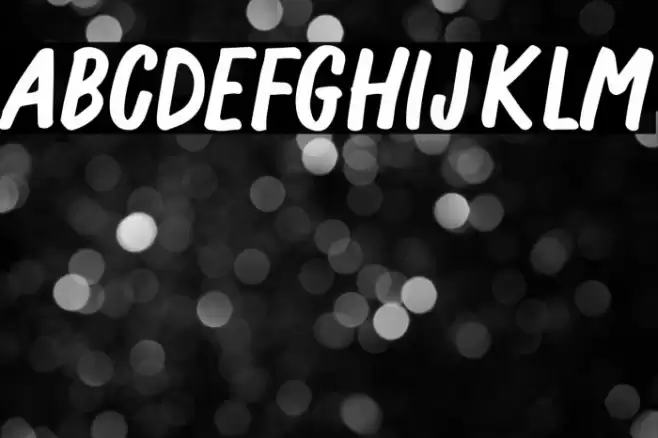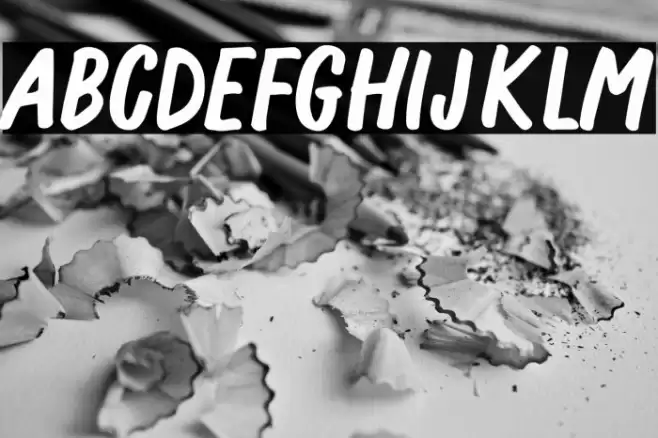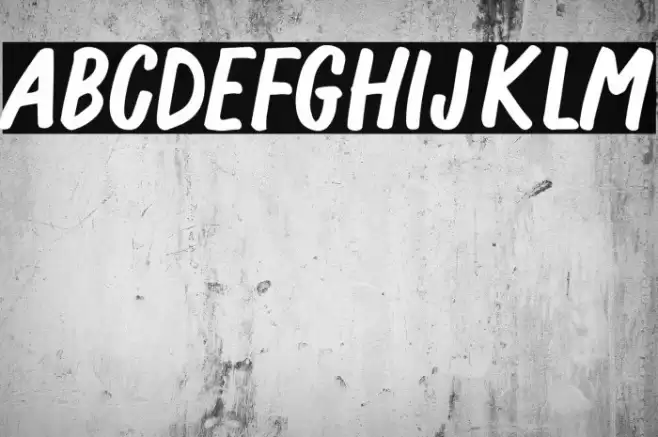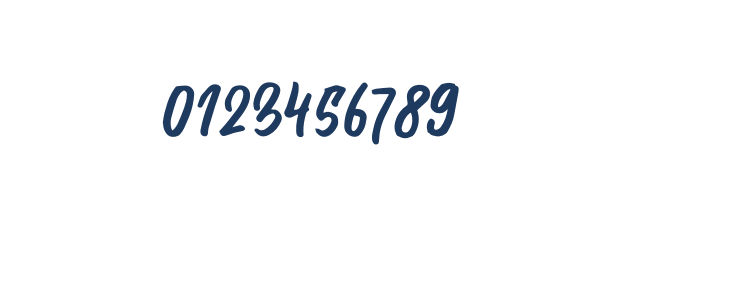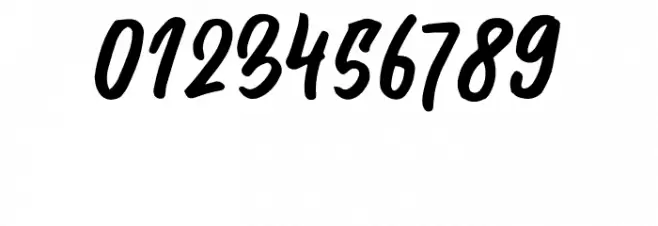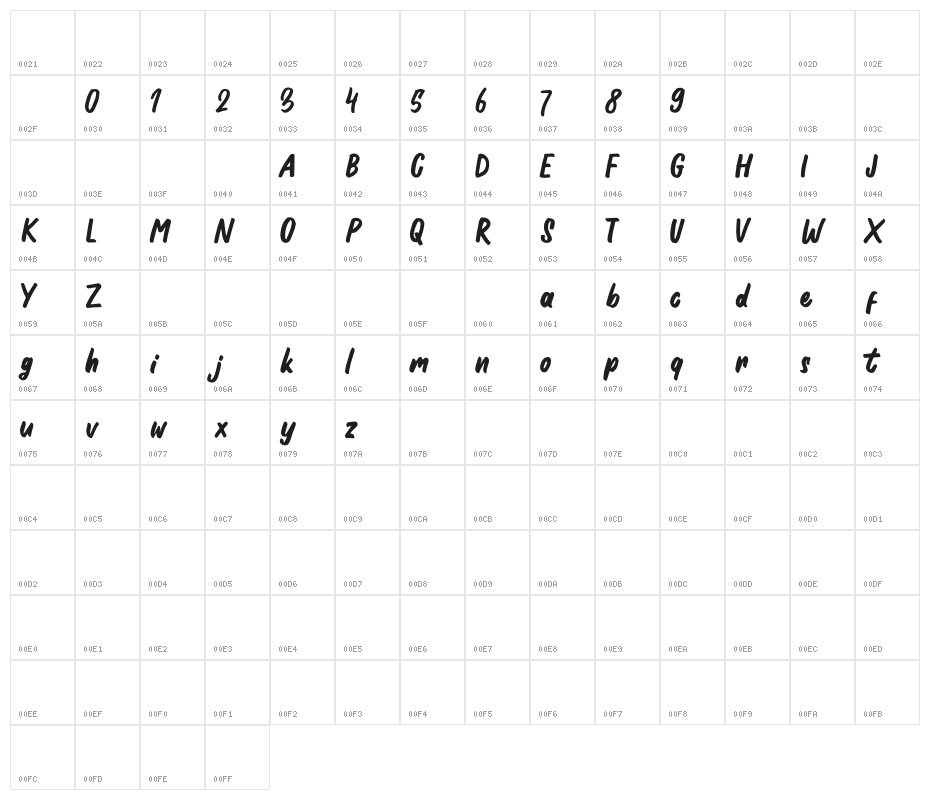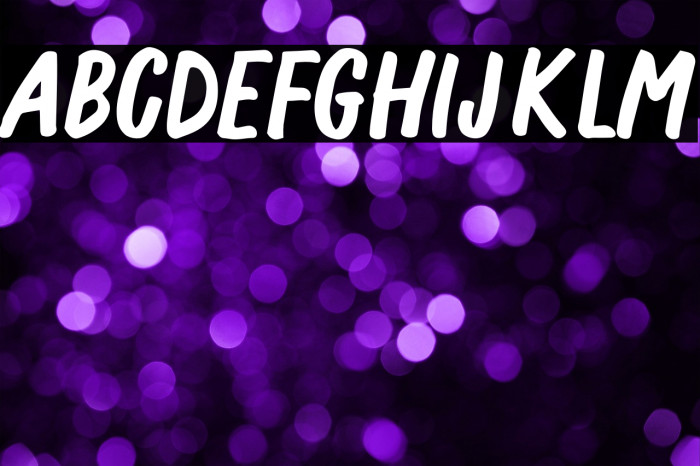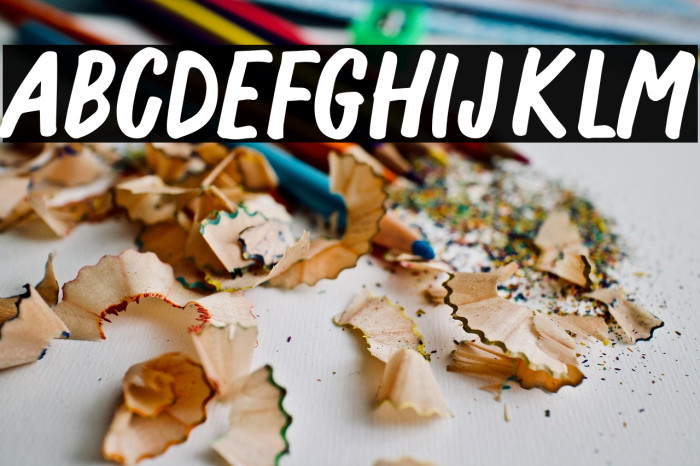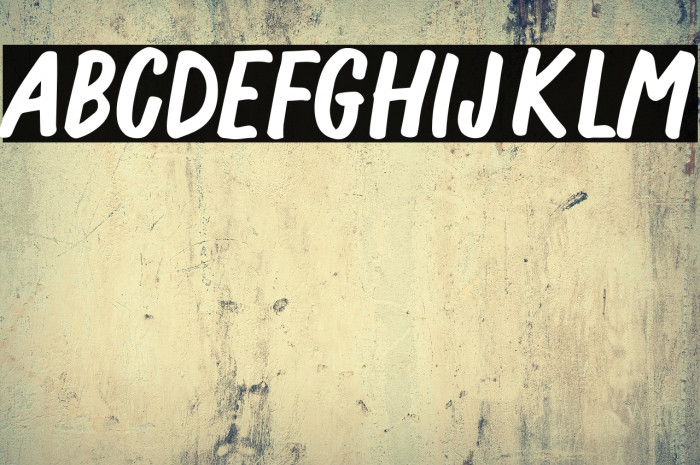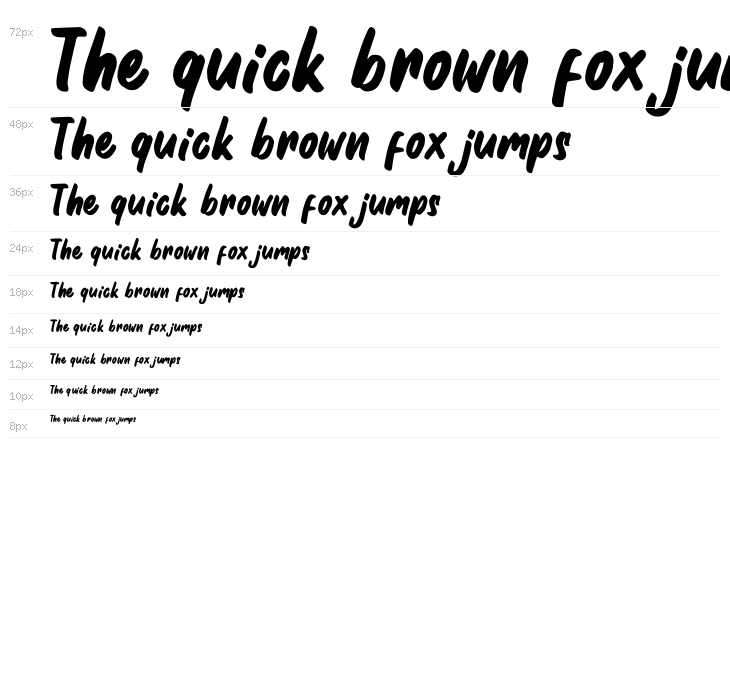
Rhombenk Font
Rhombenk Description
This font features a bold and dynamic handwritten style, characterized by its fluid and slightly slanted letterforms. The strokes are thick and consistent, giving it a strong presence on the page. The uppercase and lowercase letters maintain a cohesive look, with rounded edges and a playful, casual feel. The numerals are equally bold, matching the overall aesthetic of the alphabet. This font exudes a sense of energy and informality, making it suitable for creative and expressive projects.
A bold, handwritten font with fluid, slightly slanted letterforms and a playful style from Uncategorized fonts.
- Font: Rhombenk
- Proposed Projects: Ideal for branding, posters, social media graphics, and any project requiring a lively and informal touch.
- Overall Style: Casual and Energetic